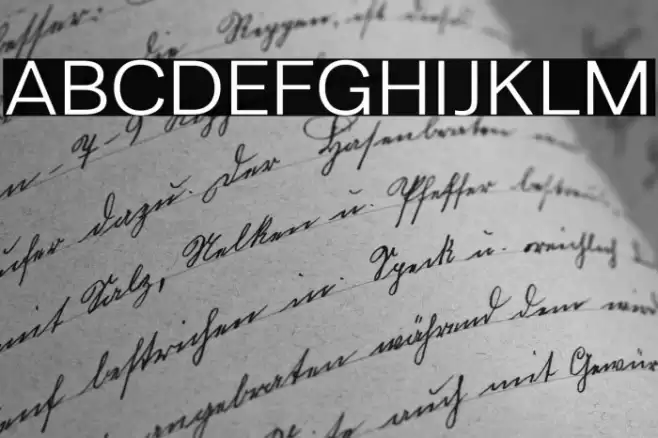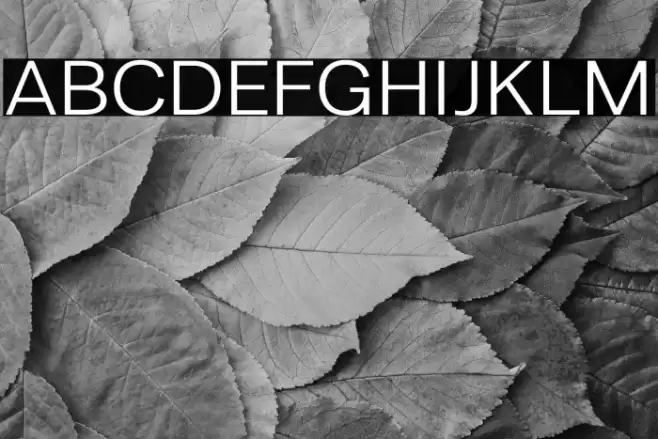
LT Amber Extended Font
LT Amber Extended Description
This font features a clean and modern sans-serif design with a focus on readability and simplicity. The characters are well-proportioned, with a uniform stroke width that gives it a balanced and harmonious appearance. The uppercase letters are bold and assertive, while the lowercase letters maintain a friendly and approachable feel. The numerals are clear and distinct, making them easy to read at various sizes. Special characters are included, providing versatility for different types of content. The overall design is sleek and professional, suitable for a wide range of applications.
A modern sans-serif font with clean lines and balanced proportions from Uncategorized fonts.
- Font: LT Amber Extended
- Proposed Projects: Ideal for corporate branding, website headers, digital marketing materials, and editorial design.
- Width: Expanded